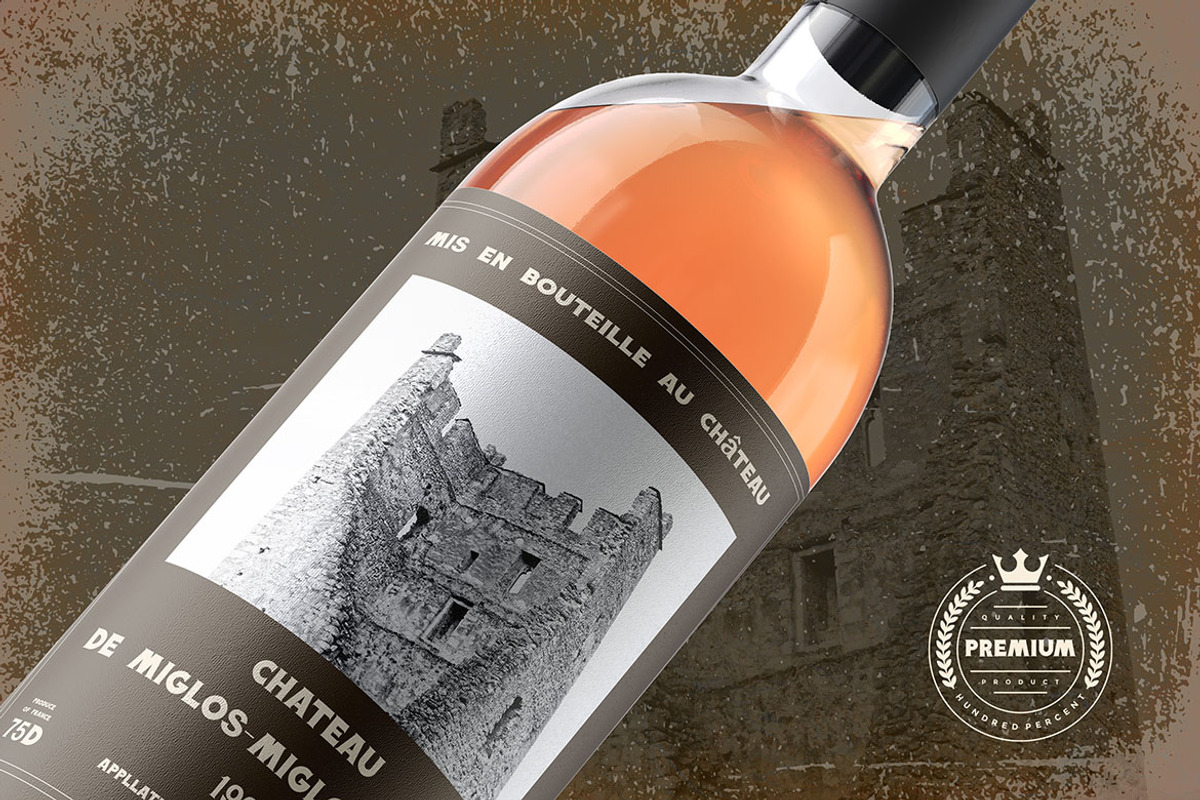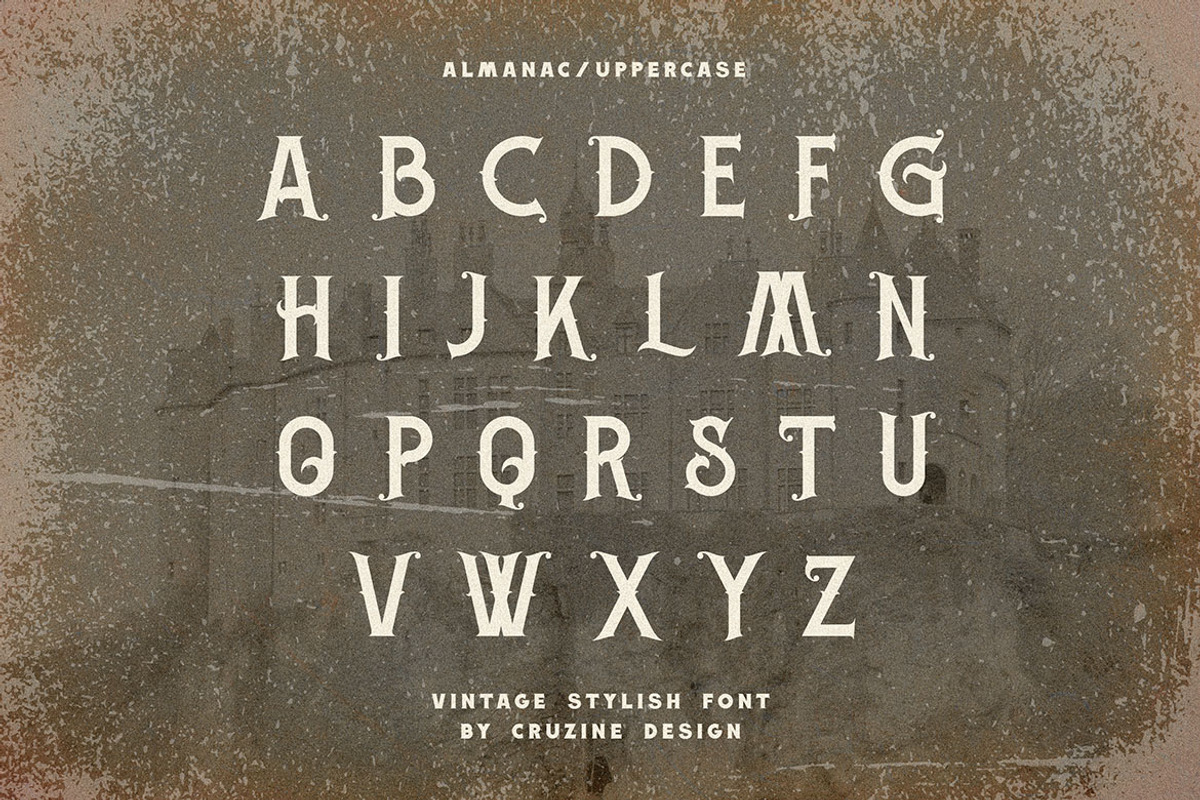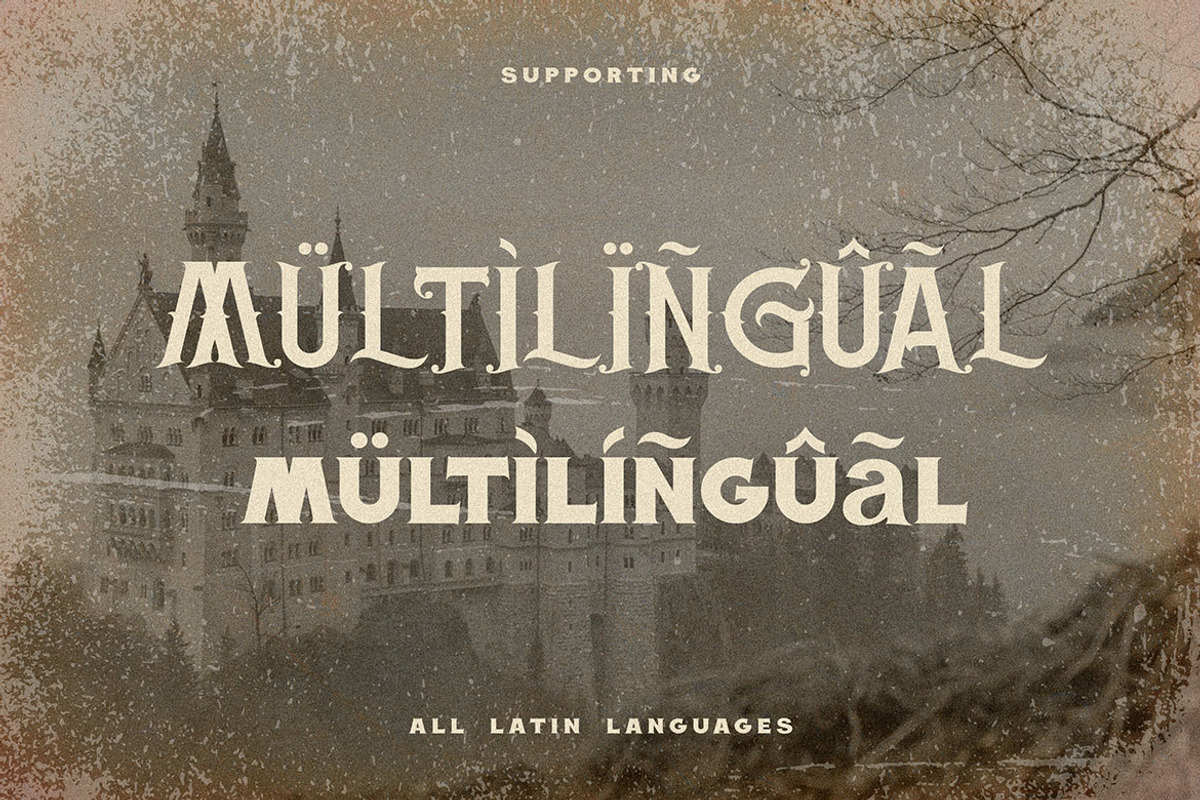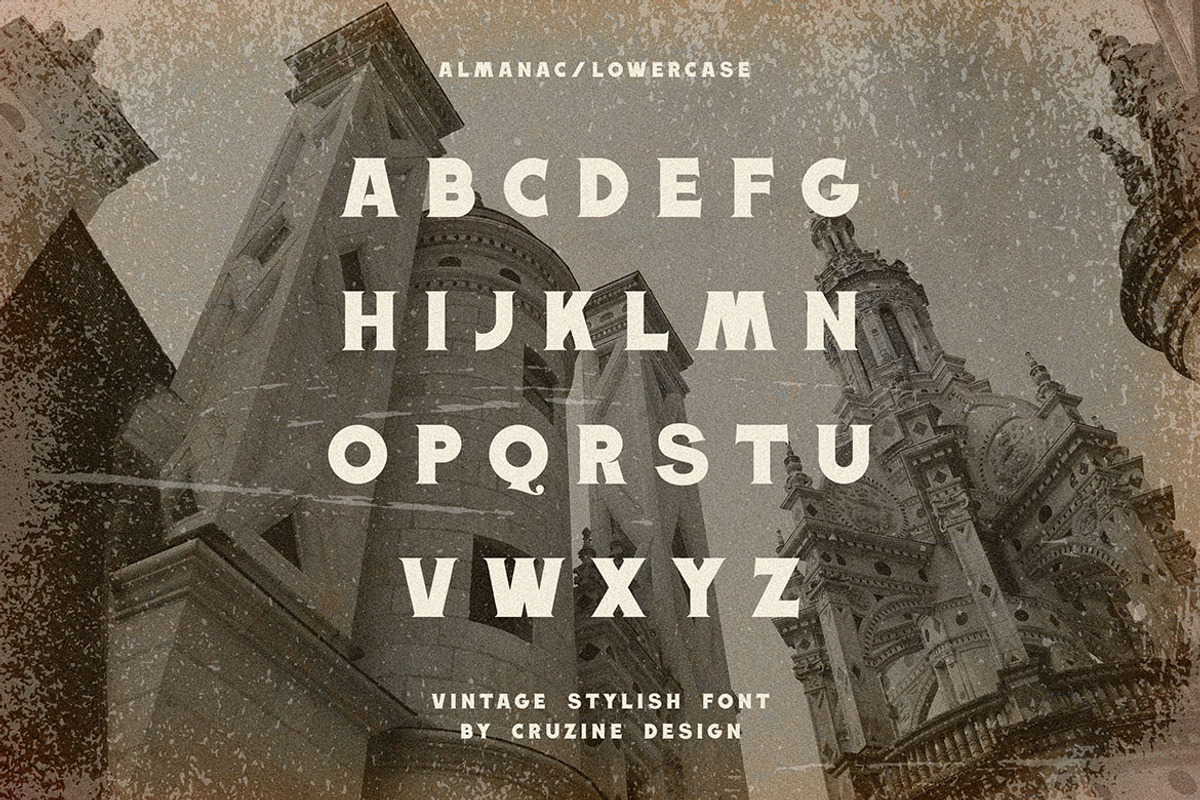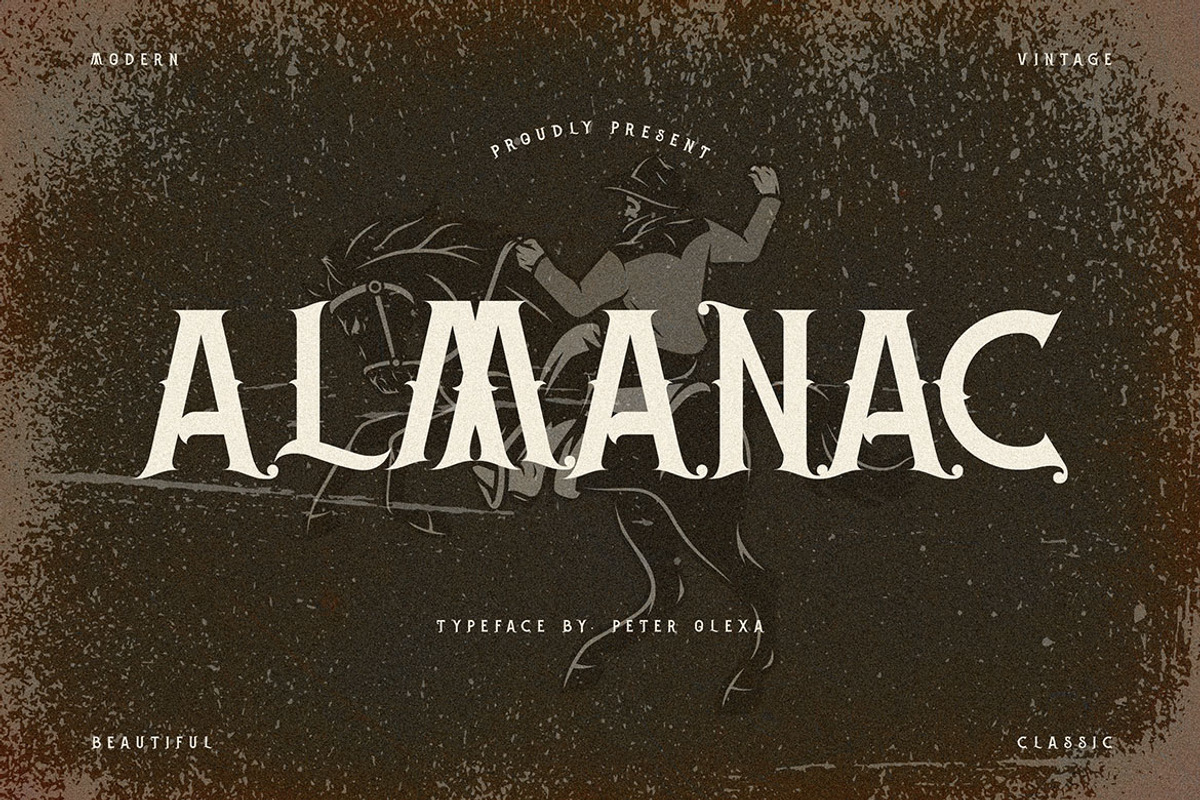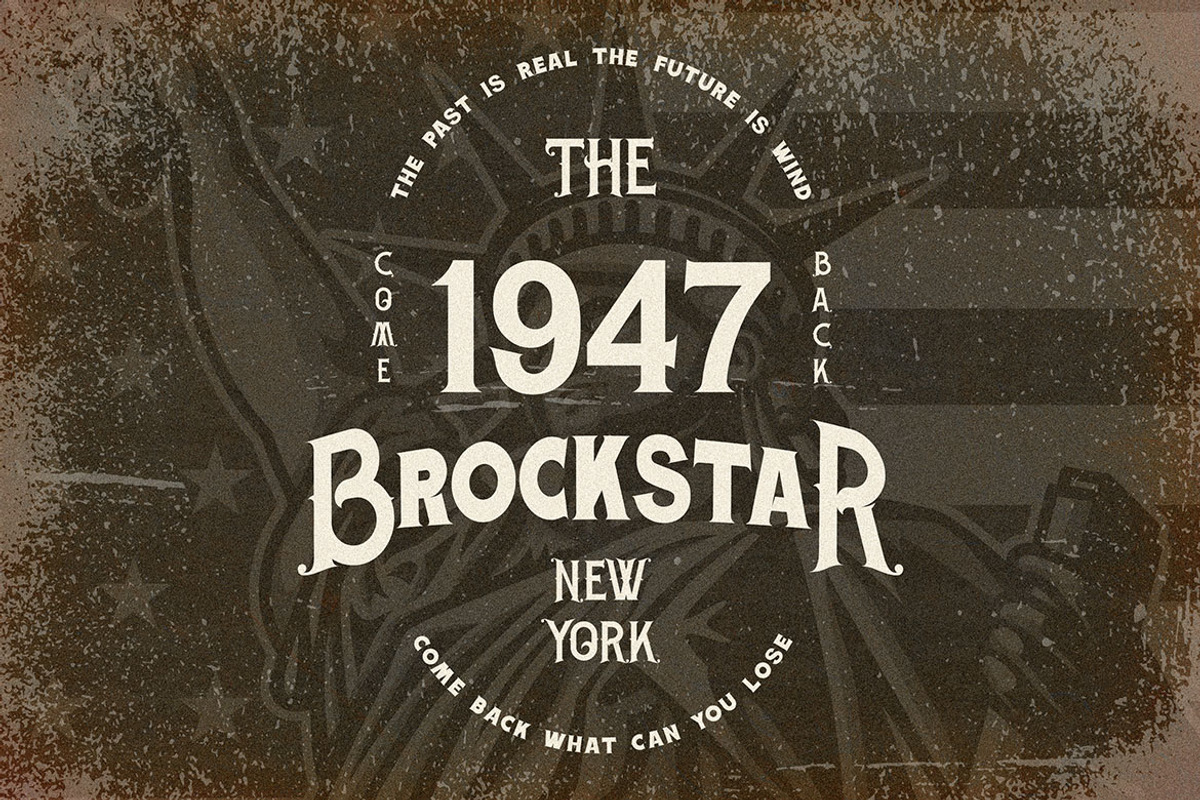
Almanac - Vintage Serif Font
Unique vintage & ornamental style custom serif font. Comes with multilingual support - great for your new logo or branding project.
- Great for retro or vintage style branding projects